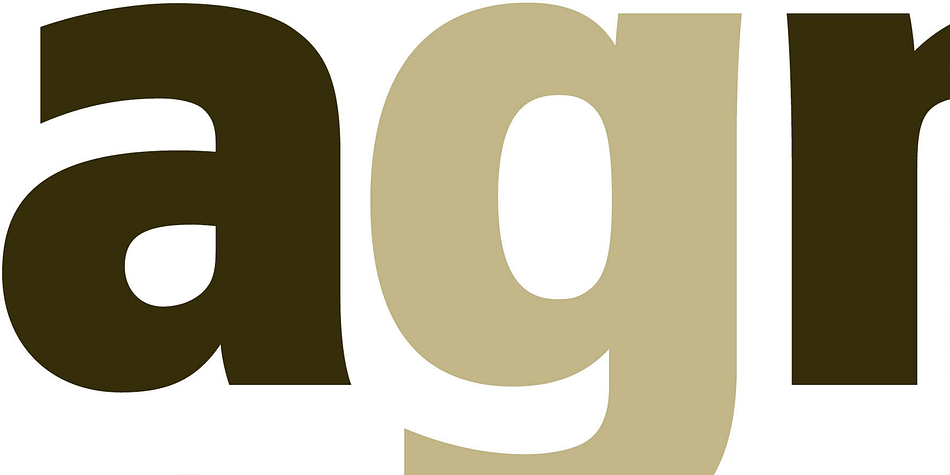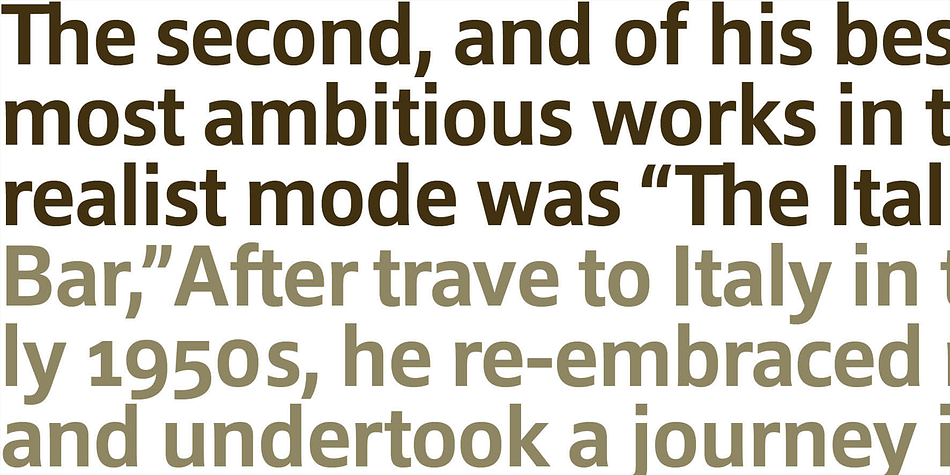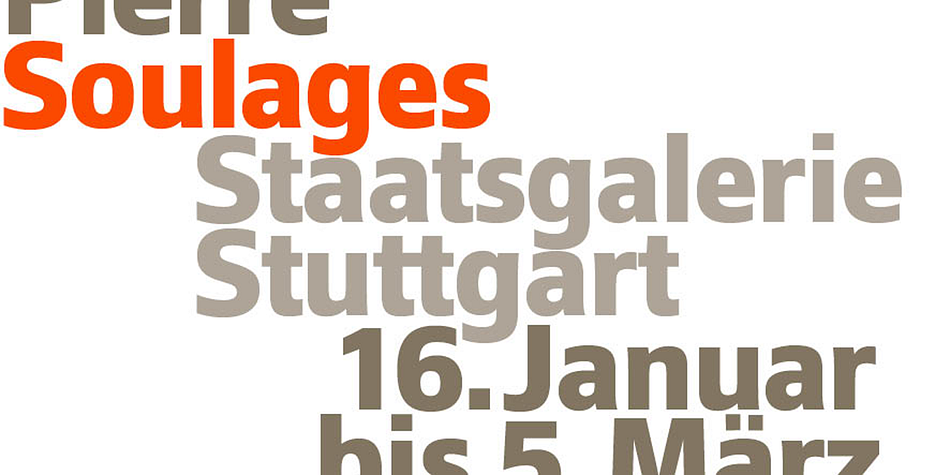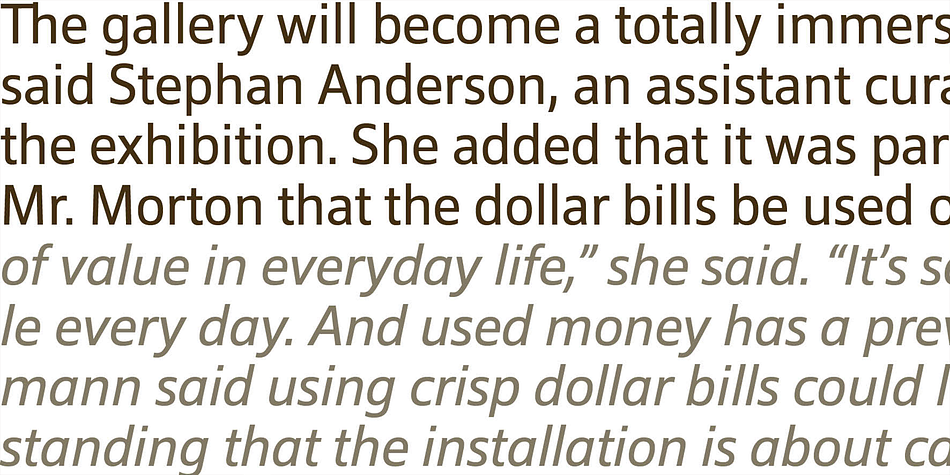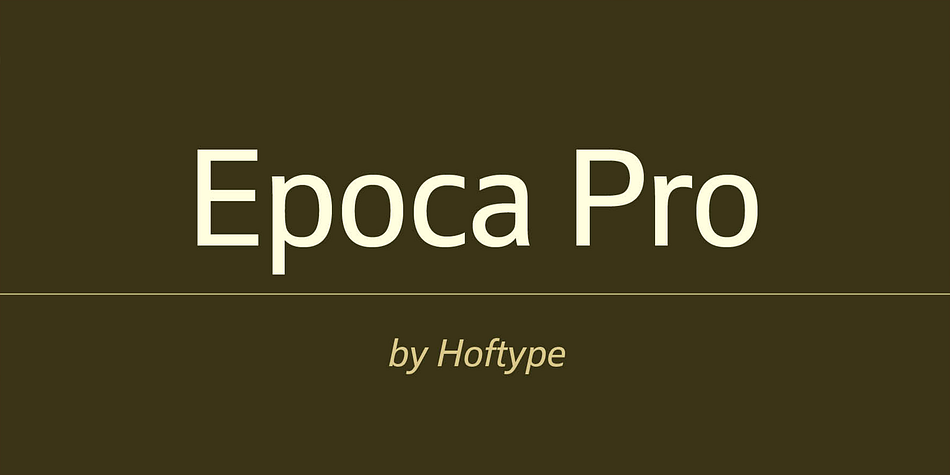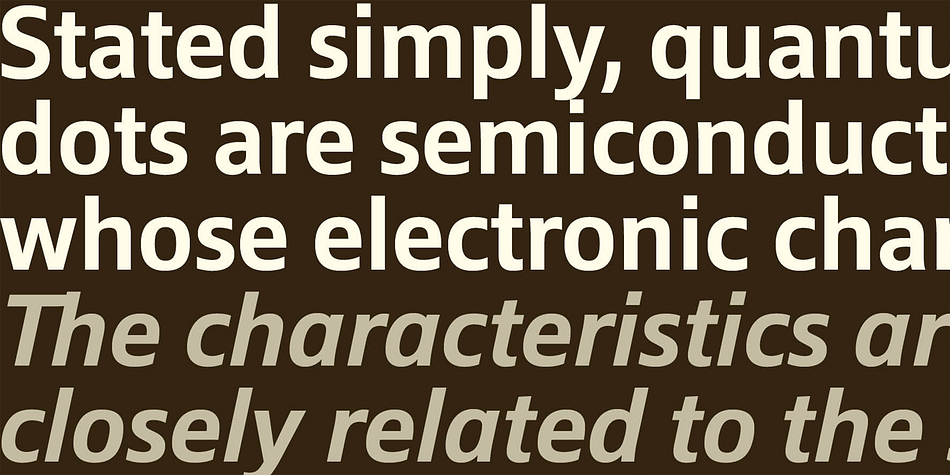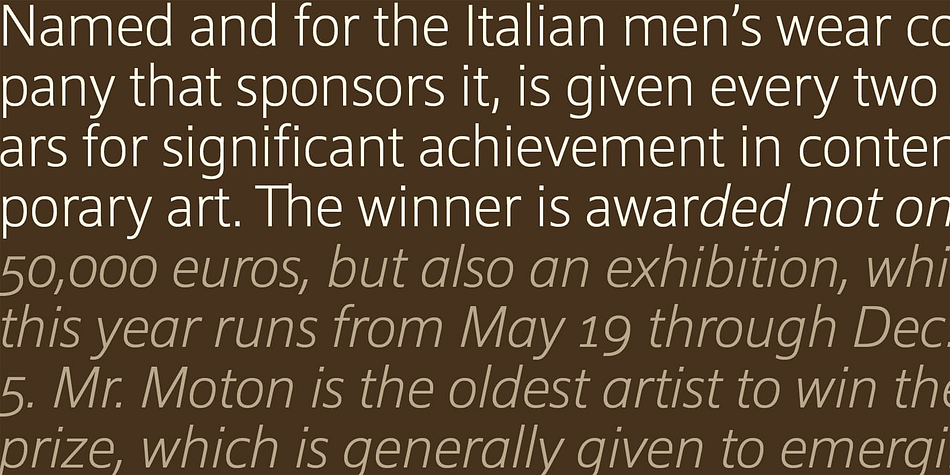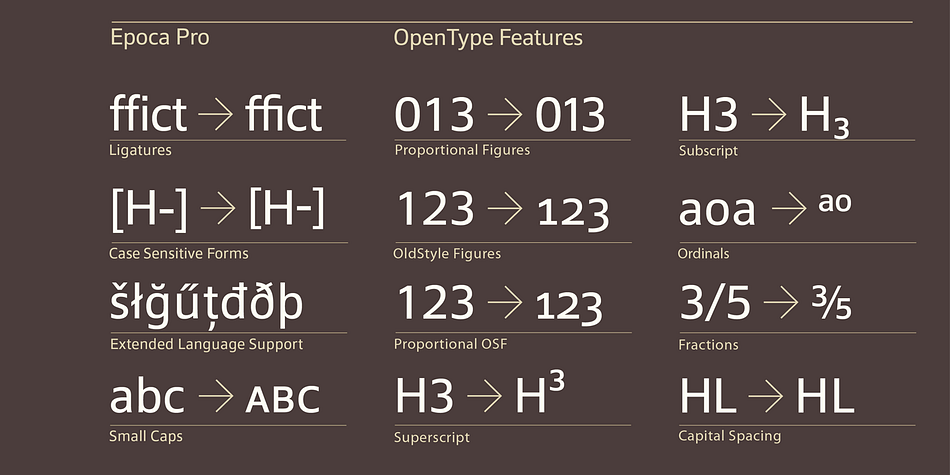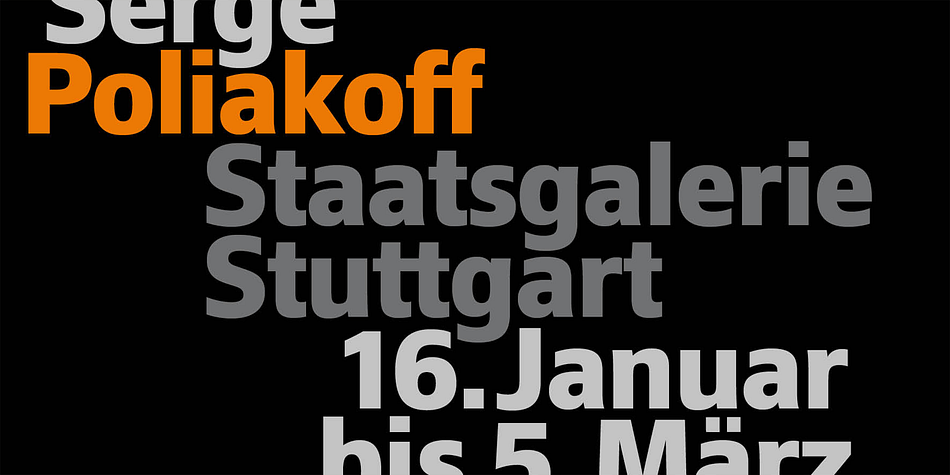
Epoca Pro is a sans serif font family. This typeface has eight styles and was published by Hoftype.
Epoca, designed in 2010 is a classic linear sans for text and display. It has economical proportions, a neutral appearance and a discreet elegance. While sturdy and robust, it is nonetheless a strong workhorse. The slightly angular shape of the round elements results in a quiet flow of the line which enables fatigue-proof reading even with large amounts of text. Epoca comes in eight weights and in OpenType format. All weights contain small caps, standard ligatures, proportional lining figures, tabular lining figures, proportional old style figures, lining old style figures, matching currency symbols, fraction- and scientific numerals.